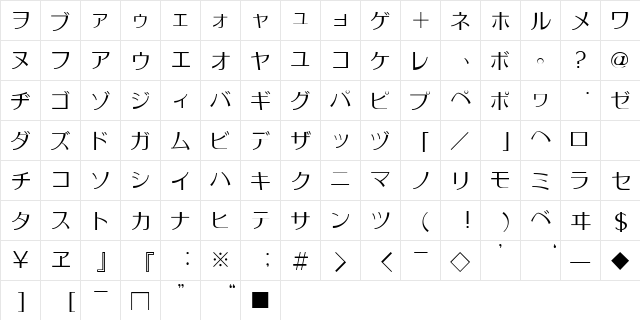
MoonbeamsKatakana Regular
Design Context for MoonbeamsKatakana Typeface
MoonbeamsKatakana takes a measured approach to typography — its balanced proportions and neutral character make it a reliable workhorse for both digital and print work.